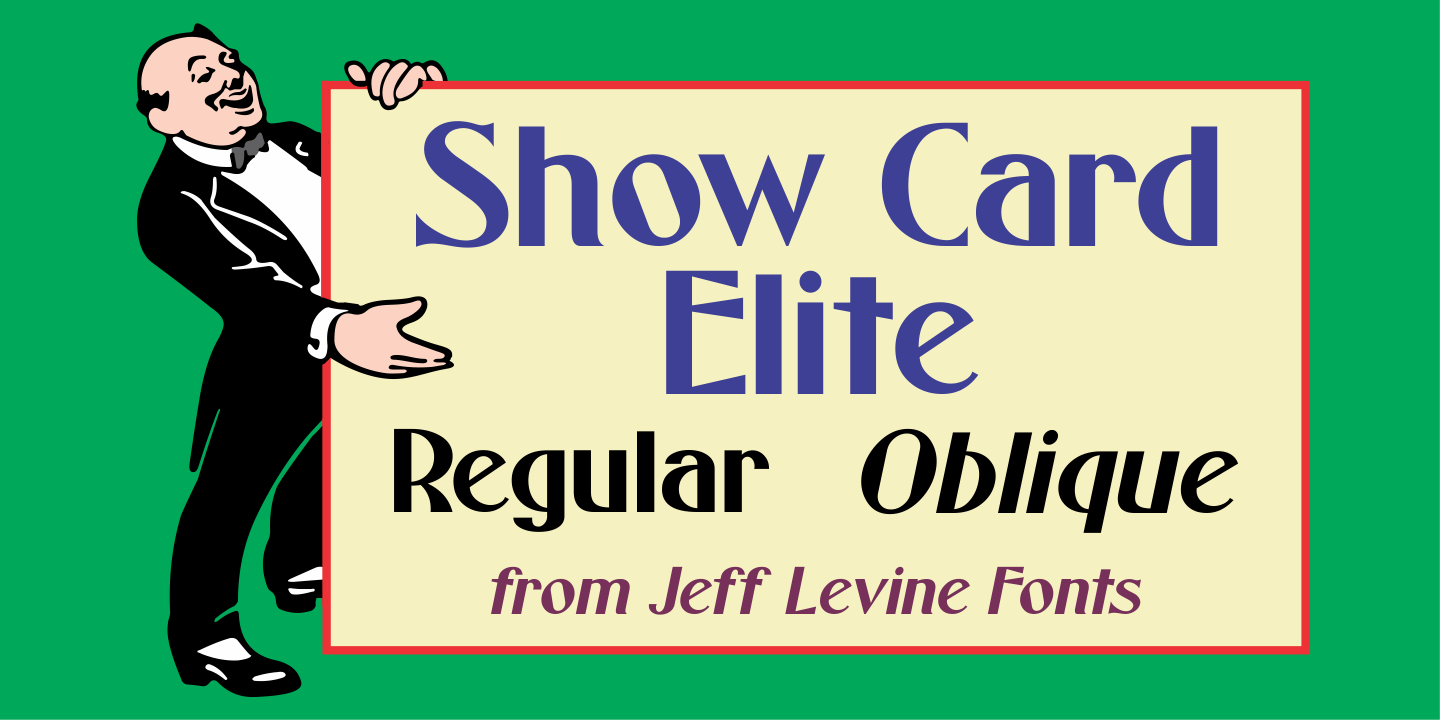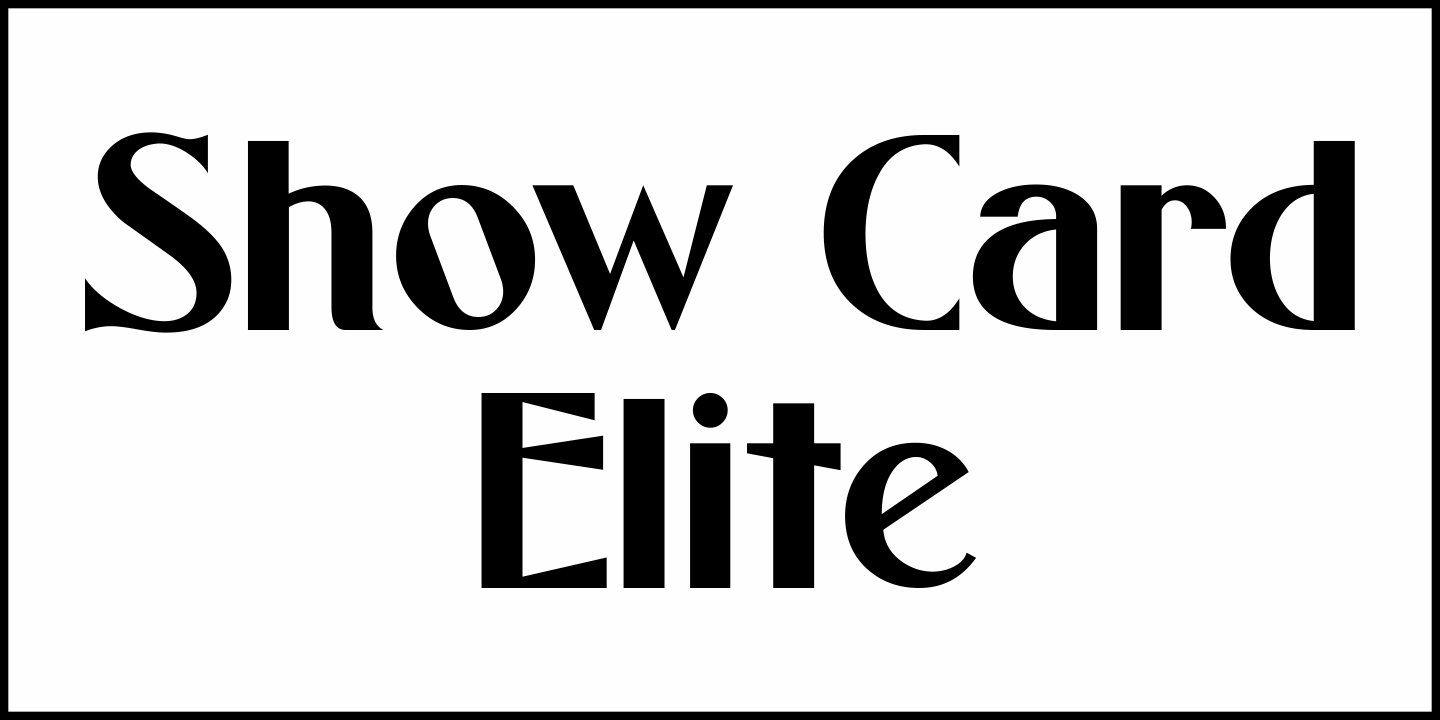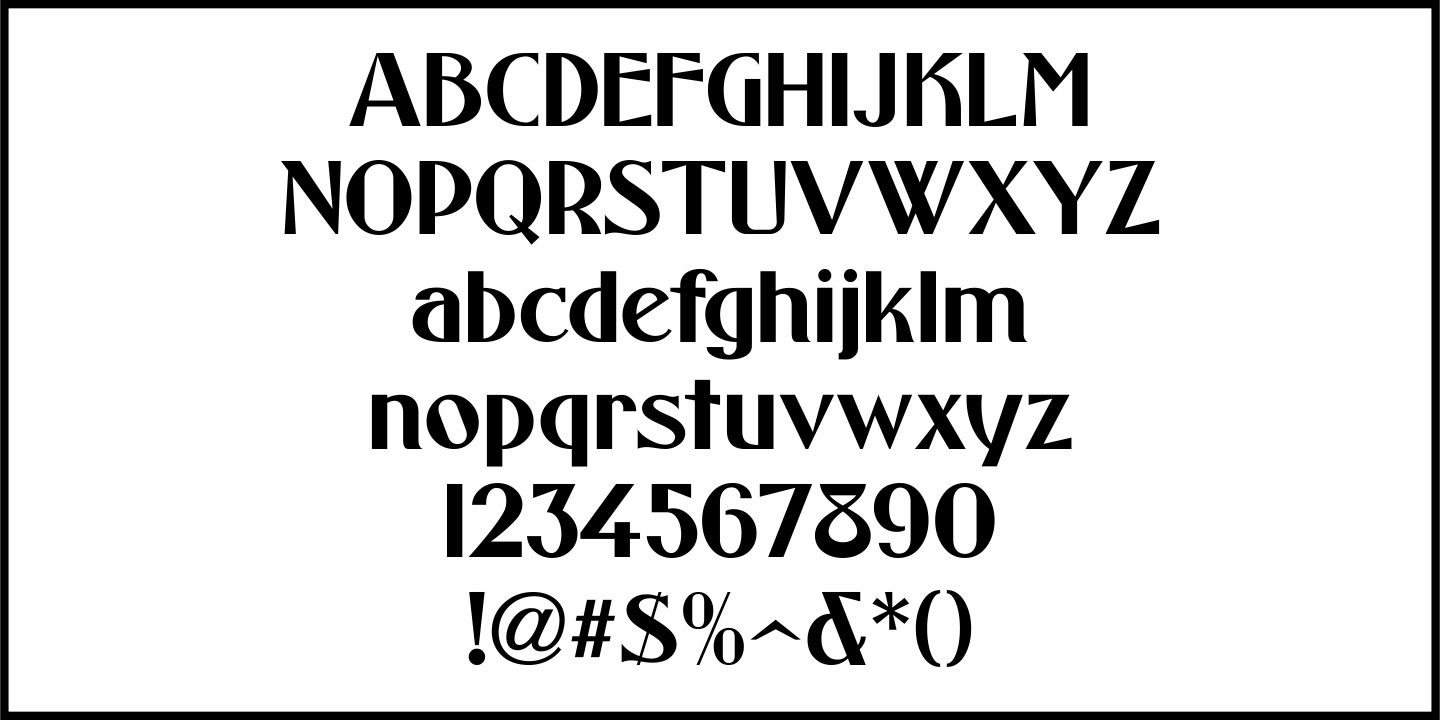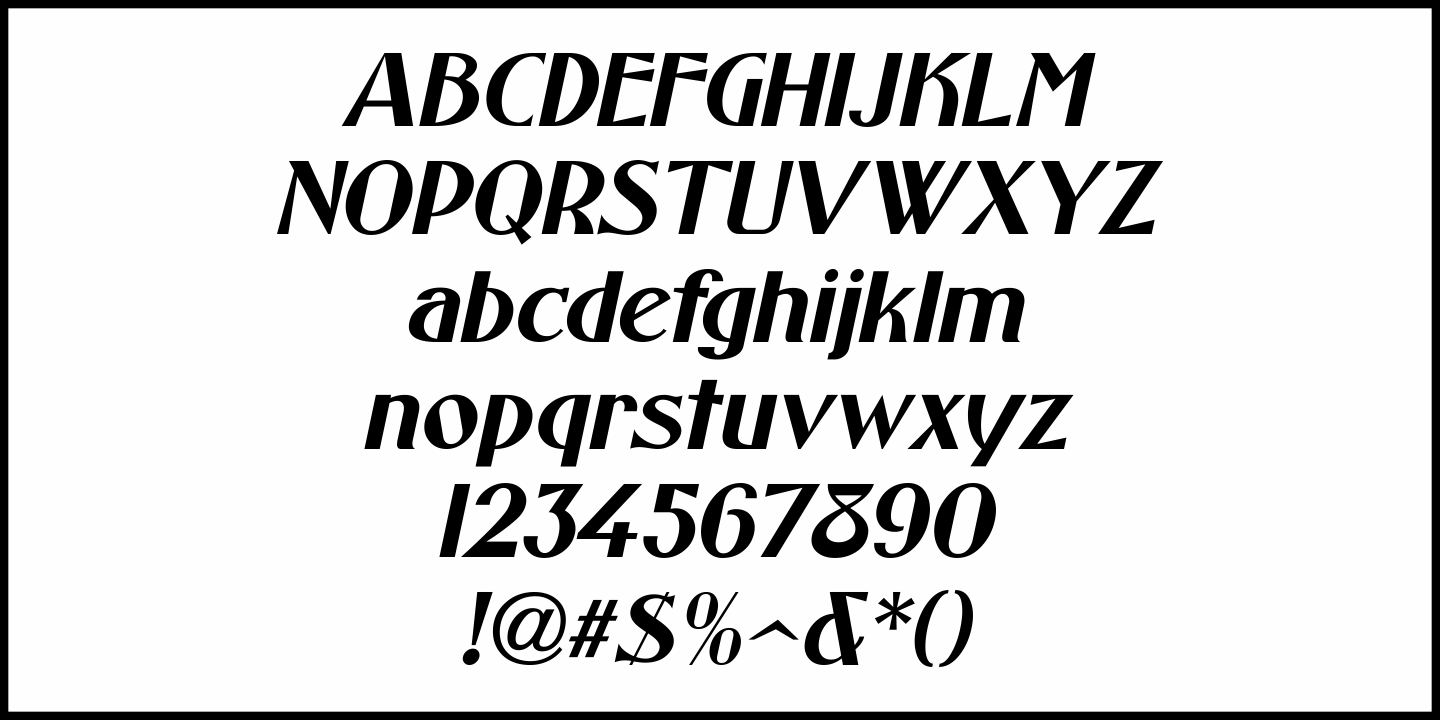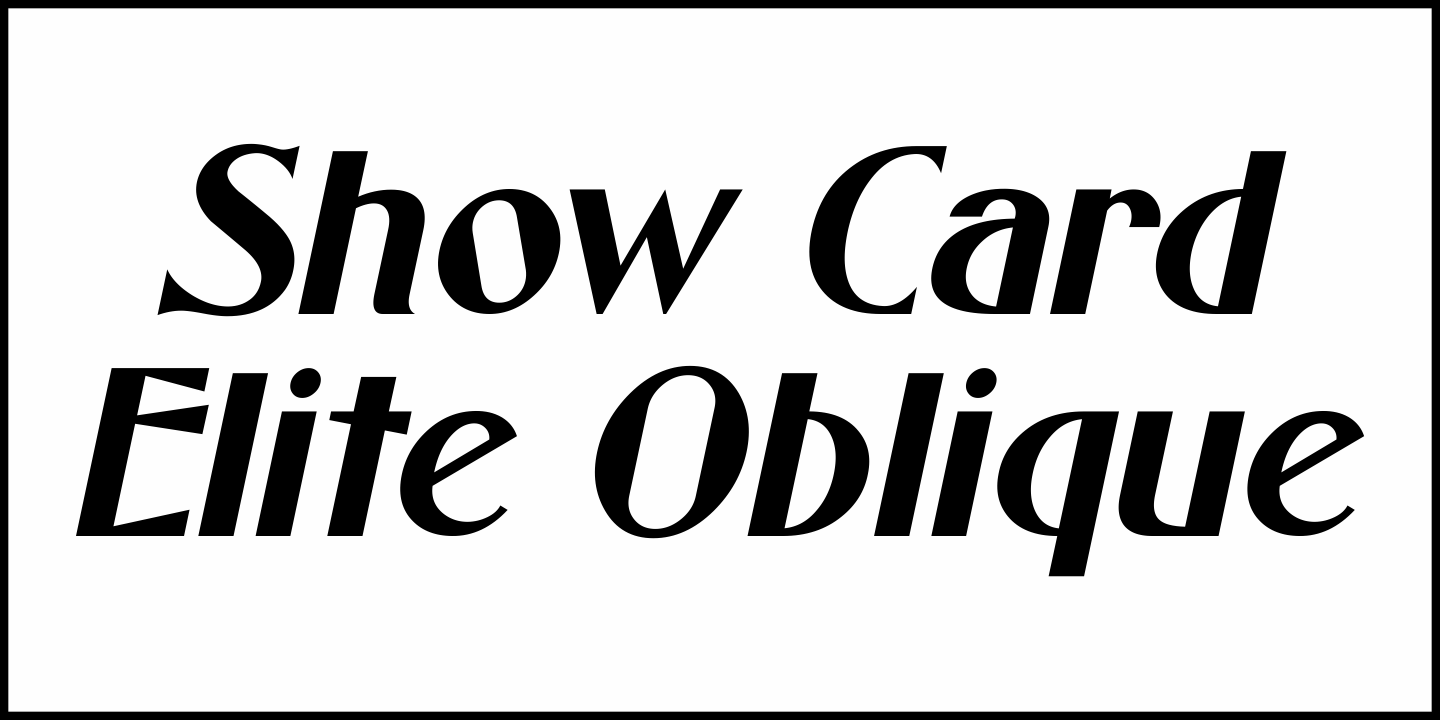
Show Card Elite
One example in the 1919 instructional book “One Hundred Alphabets for the Show Card Writer” was for an elegant sans serif with a subtle Art Nouveau style to the letter forms.
This is now available digitally as Show Card Elite JNL in both regular and oblique versions.